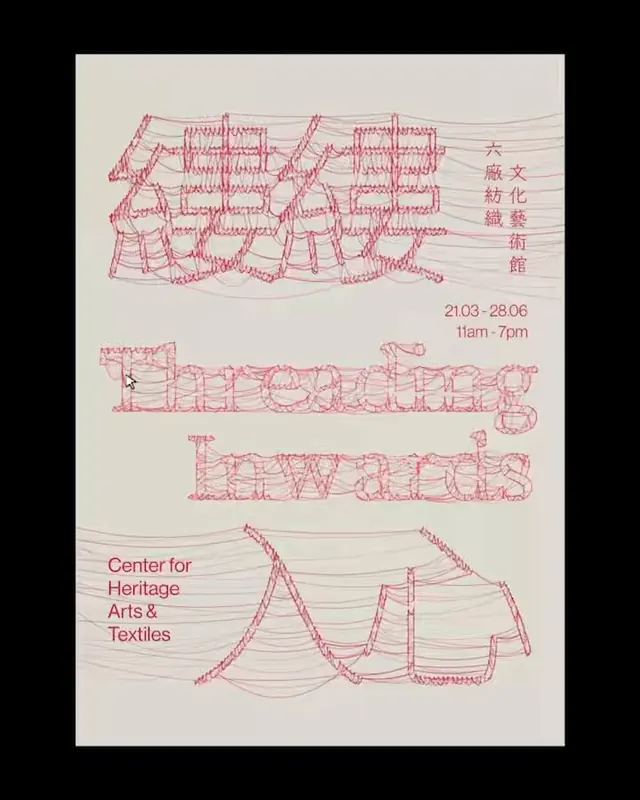
A textile-inspired exhibition poster uses stitched pink lettering and draped fabric forms on a warm neutral background.
A vertical poster with a cream background and red elements. The composition features large, distorted typography and characters rendered as 3D wireframe meshes of red lines. Small, clean sans-serif text is aligned to the right and left margins in a smaller scale.
Transform standard typography into complex 3D wireframe structures to create a tactile, architectural feel.